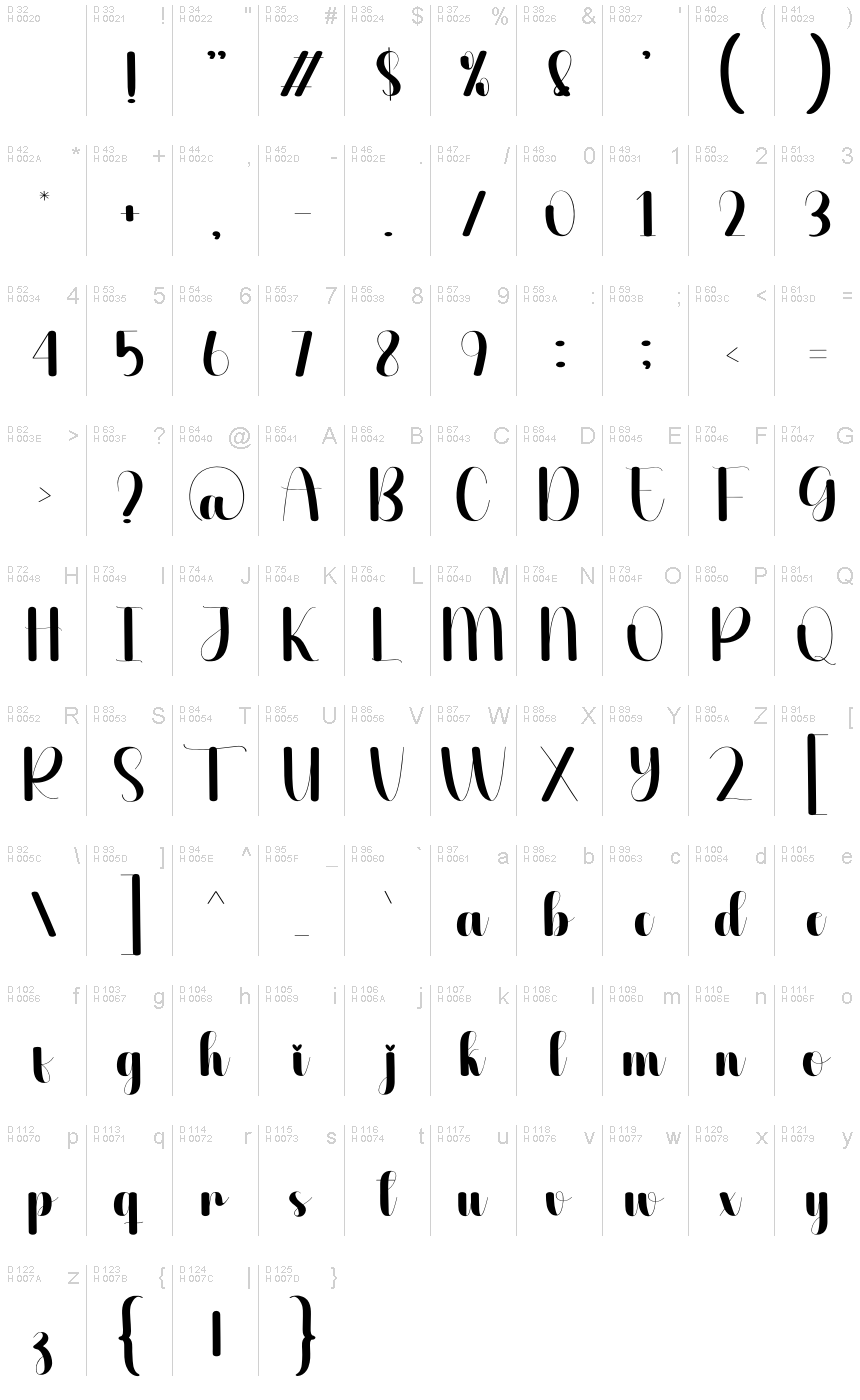
Physical
Physical font by Scratchones is an elegant, cursive, flowing, calligraphic brush style font featuring smooth curves and decorative elements that give it a whimsical mood. This free font has an artistic touch with high-contrast letter pairs and a playful edge to each character which intensifies each written word.